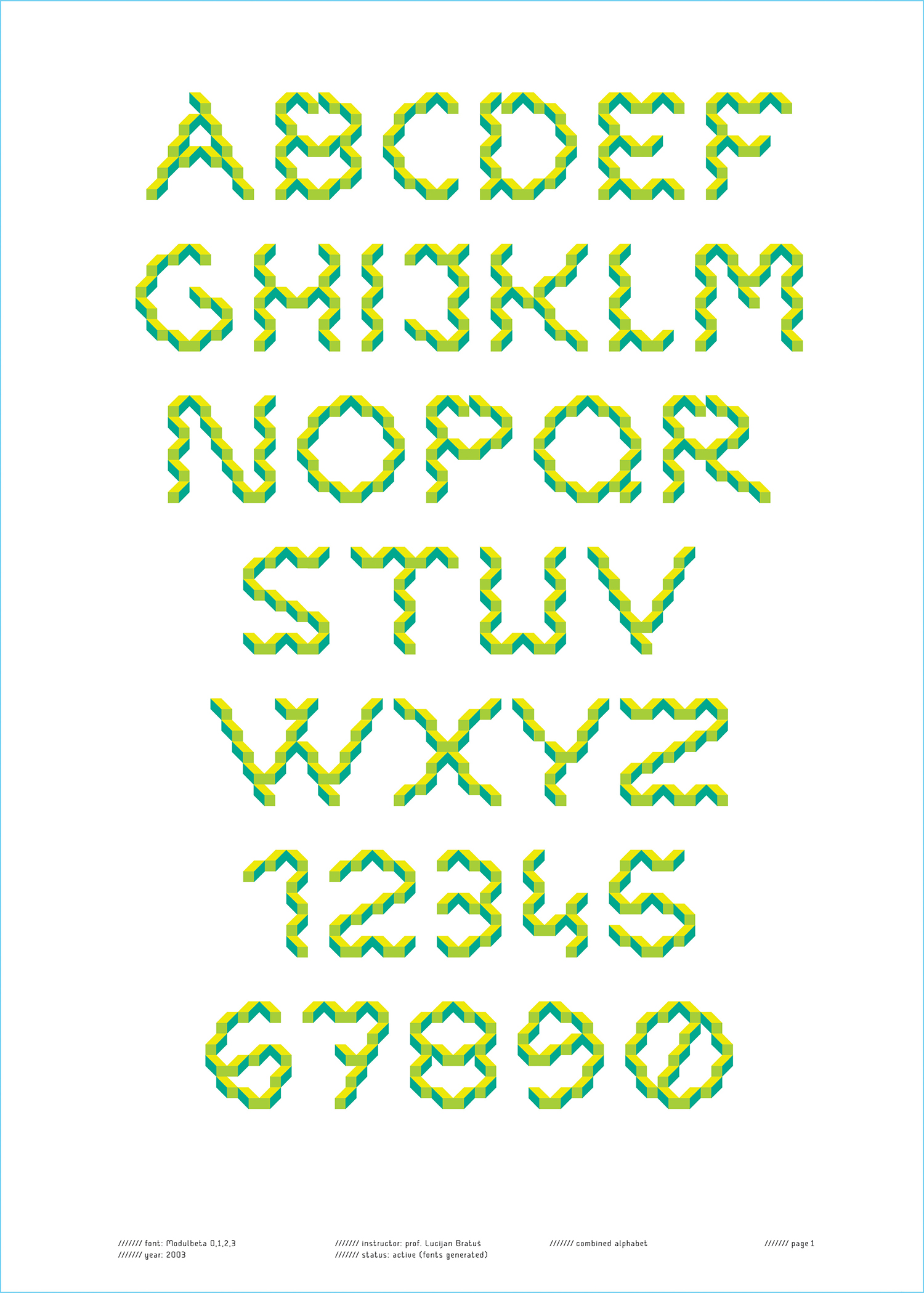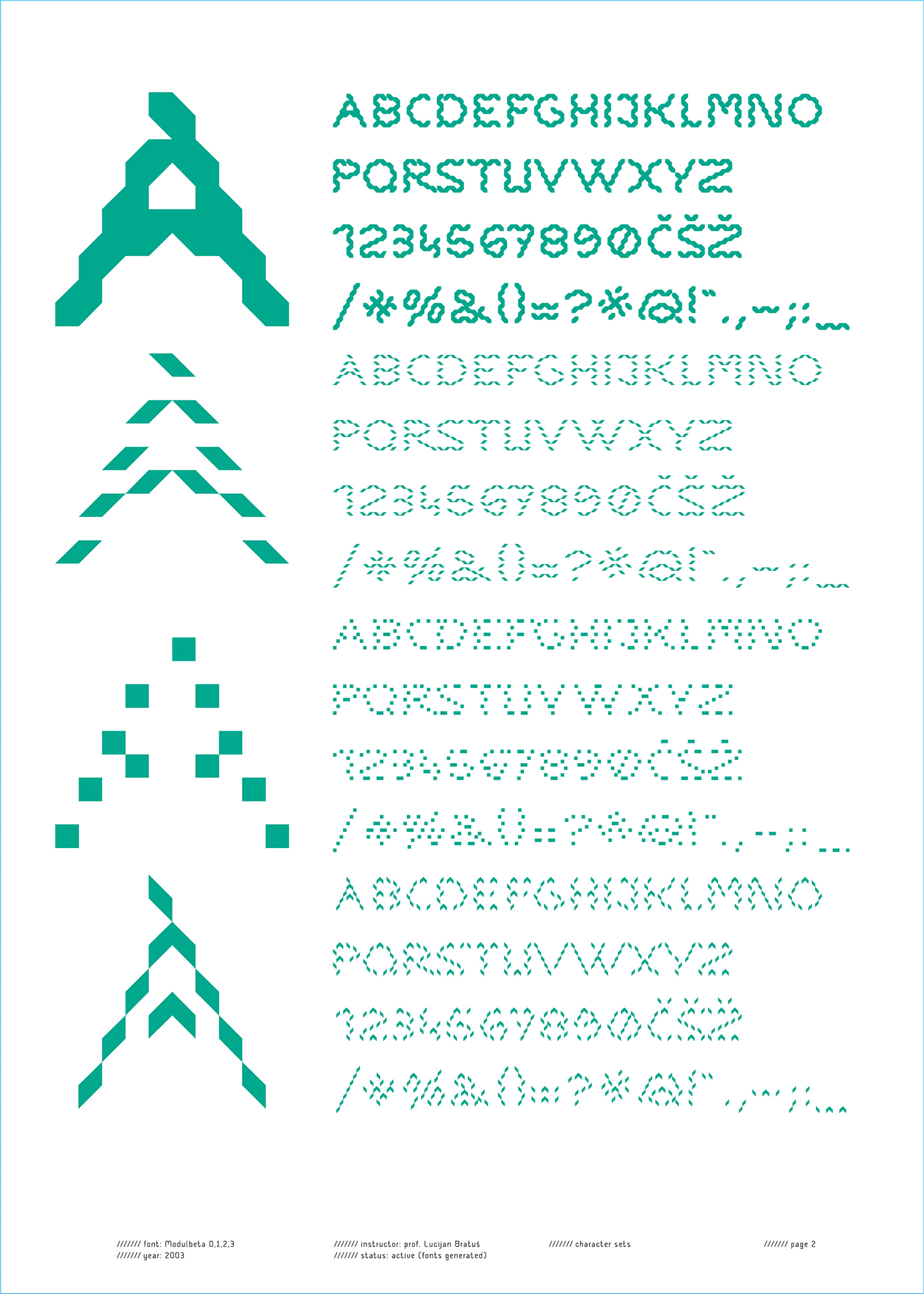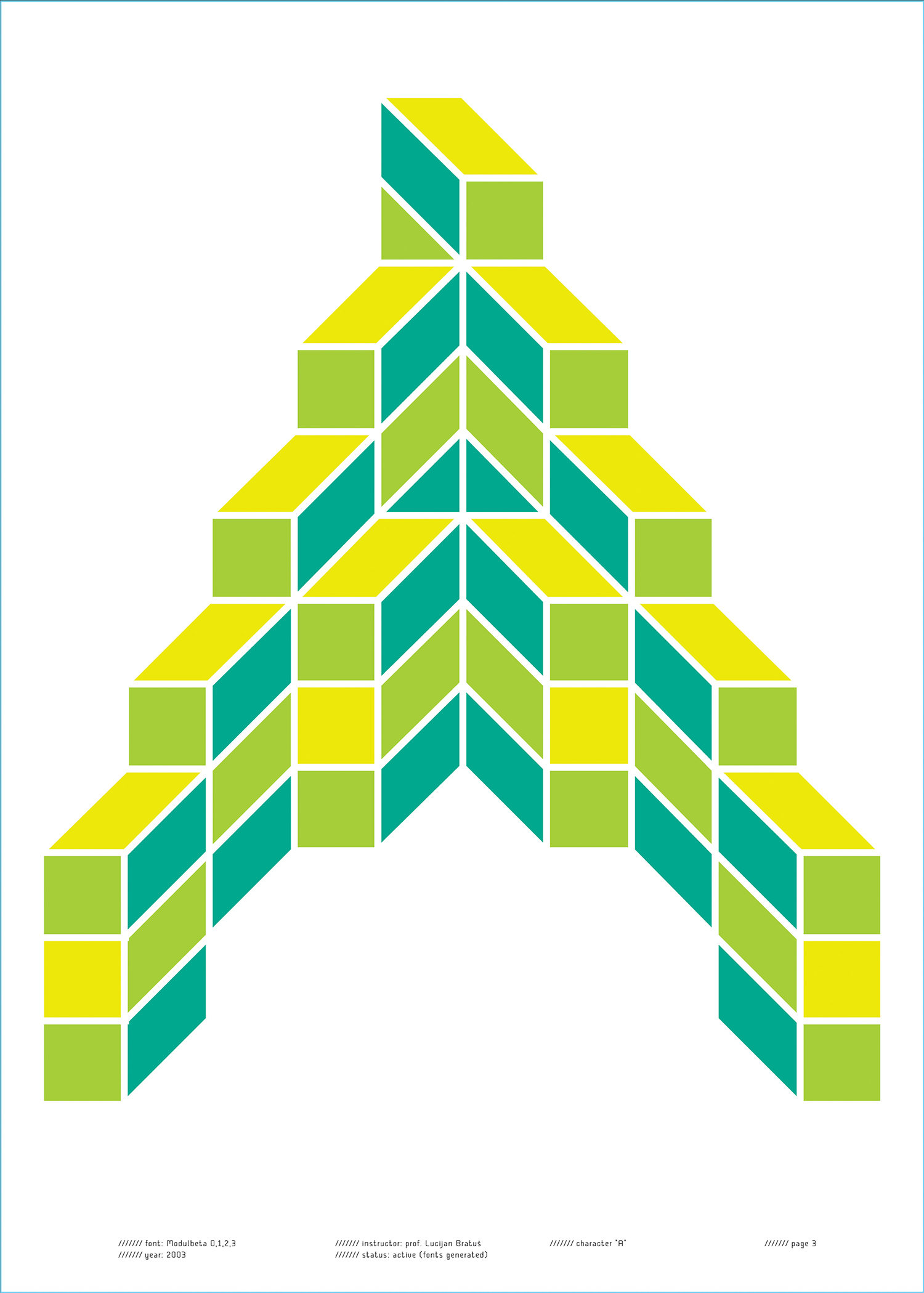
Modula Beta Font
Modula Beta is an expressive family of decorative fonts based on the exploration of modular geometry, layering, and optical illusions in typography. The family consists of four complementary weights designed specifically to be layered and typed directly over one another.
The core building blocks of each letter are geometric shapes that, when precisely combined and layered, construct a cuboid in axonometric three-dimensional perspective. The true potential and dynamism of the typeface are unlocked through the use of color—by rendering individual layers in different shades, the interplay of shapes creates highly striking 3D effects and an illusion of physical depth. Modula Beta operates as a modular creative tool, where endless combinations of layering and color allow designers to generate bold, versatile, and visually engaging spatial solutions in contemporary graphic design.
The project was created in 2003 under the mentorship of Prof. Lucijan Bratuš. Despite the time that has passed, the concept and its visual execution have lost none of their modern usability, systematic sophistication, or powerful expressiveness, proving the timeless nature of modular typographic experiments.